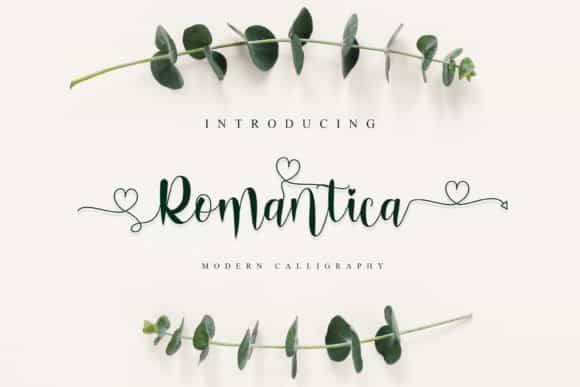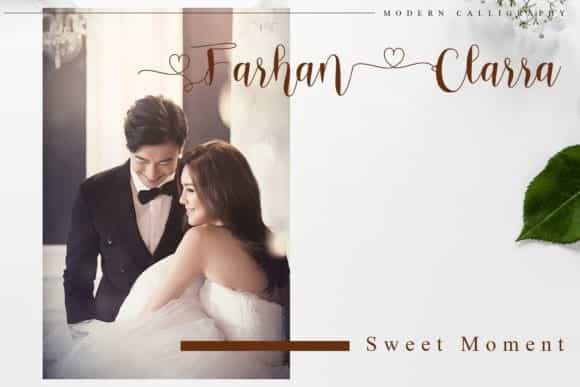
Romantica is a trendy calligraphy font with an irregular base, the smooth line and it has also this classic and elegant touch. For those of you who are in need of a little bit of elegance and modernity for your design or branding, it can be used for various purposes such as headings, signature, logos, wedding invitation, t-shirt letterhead signage label news posters badges etc.